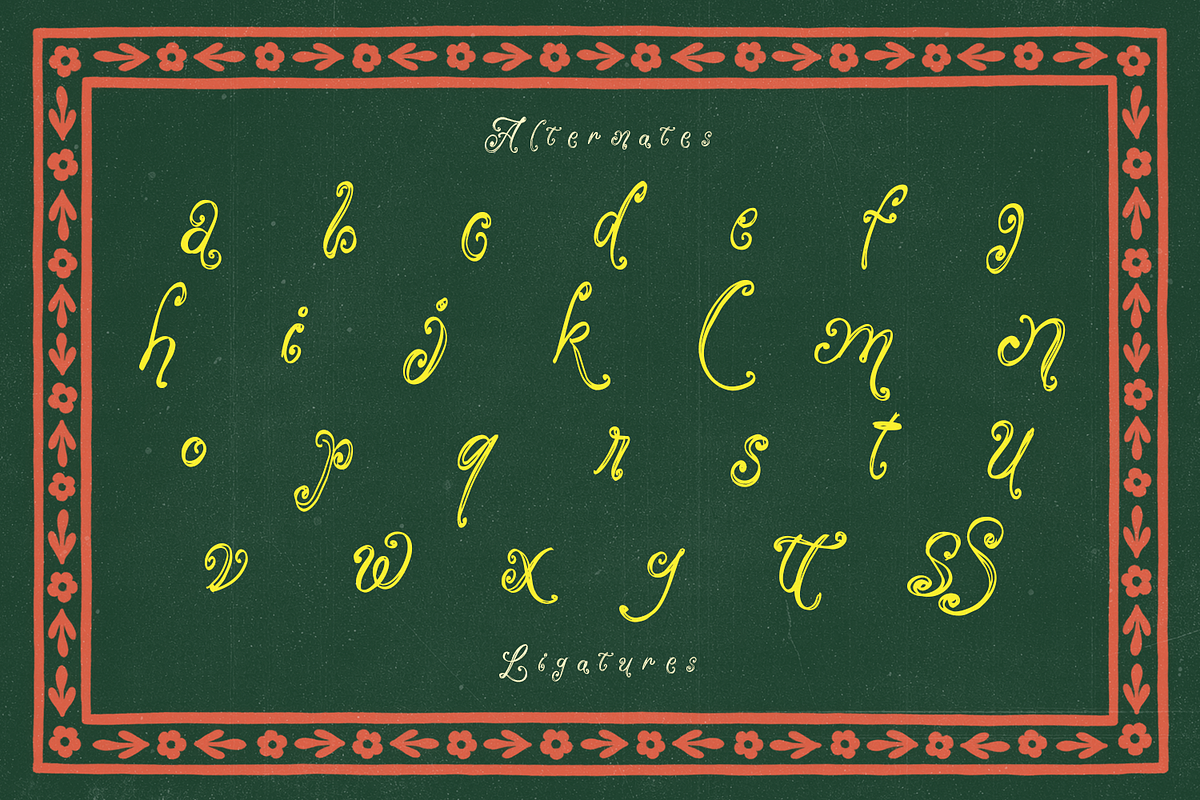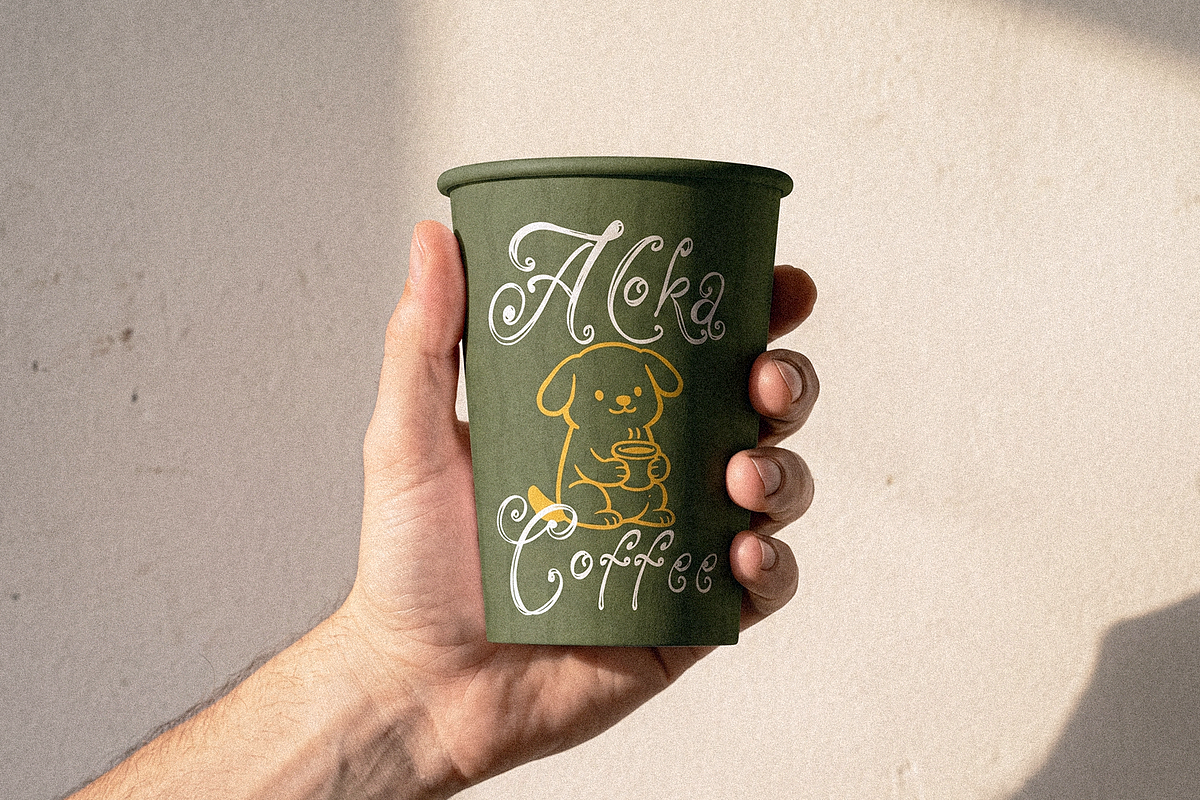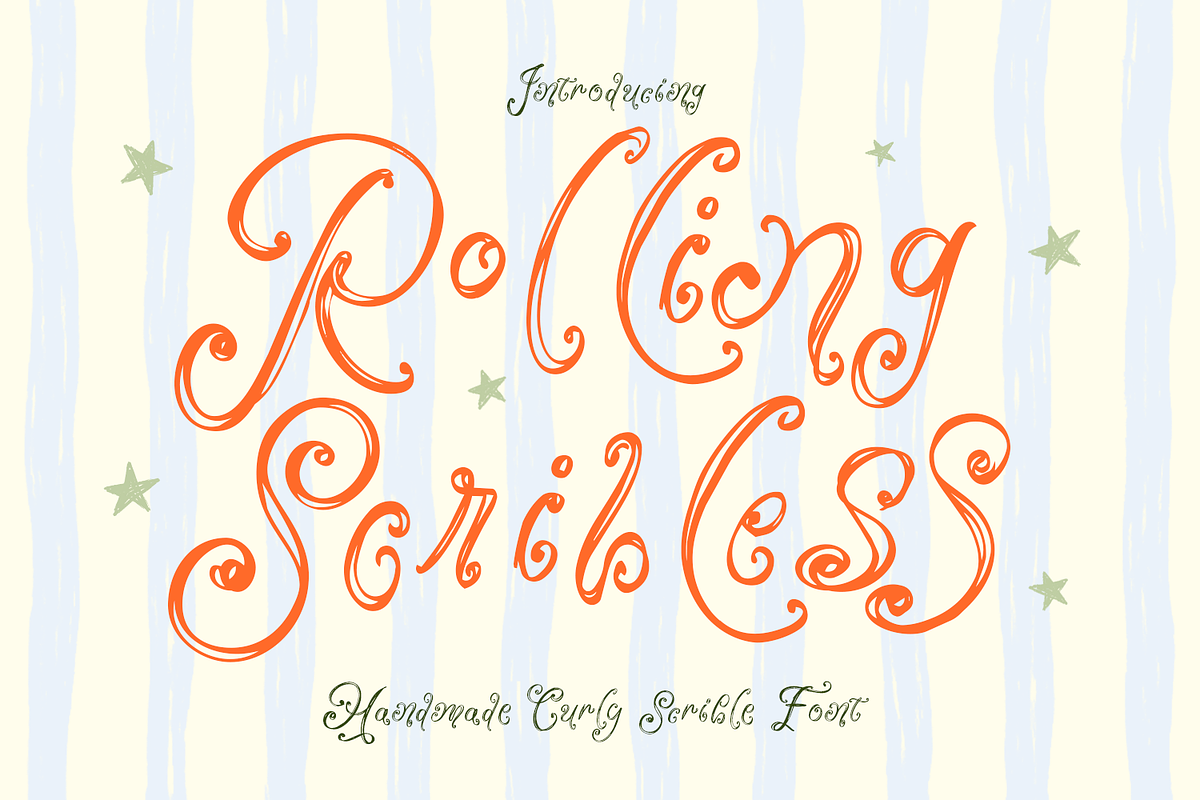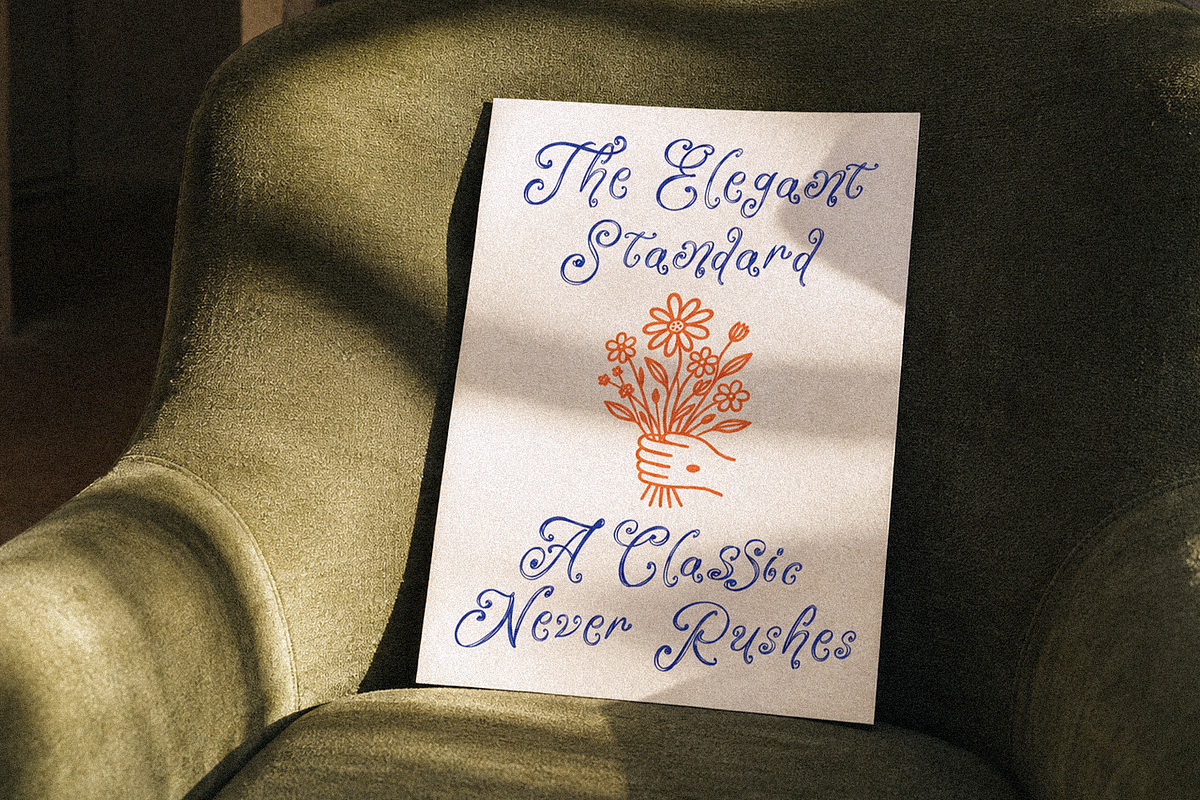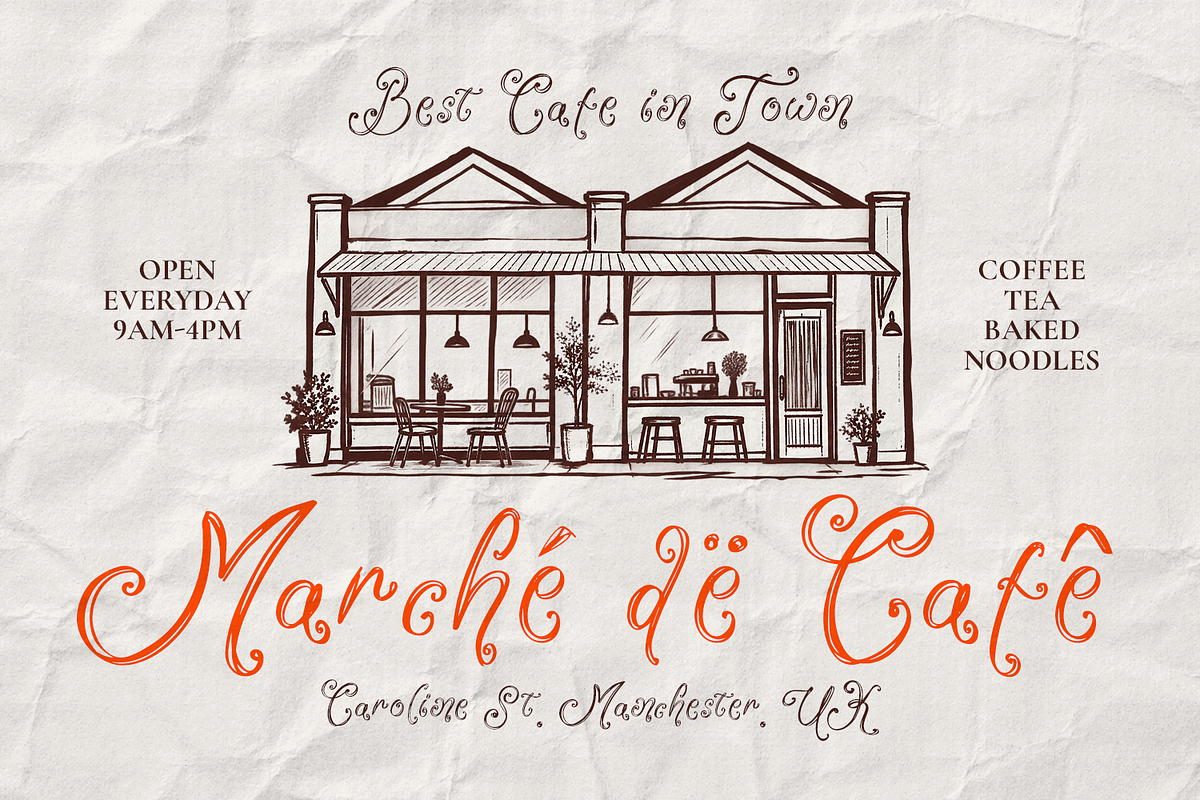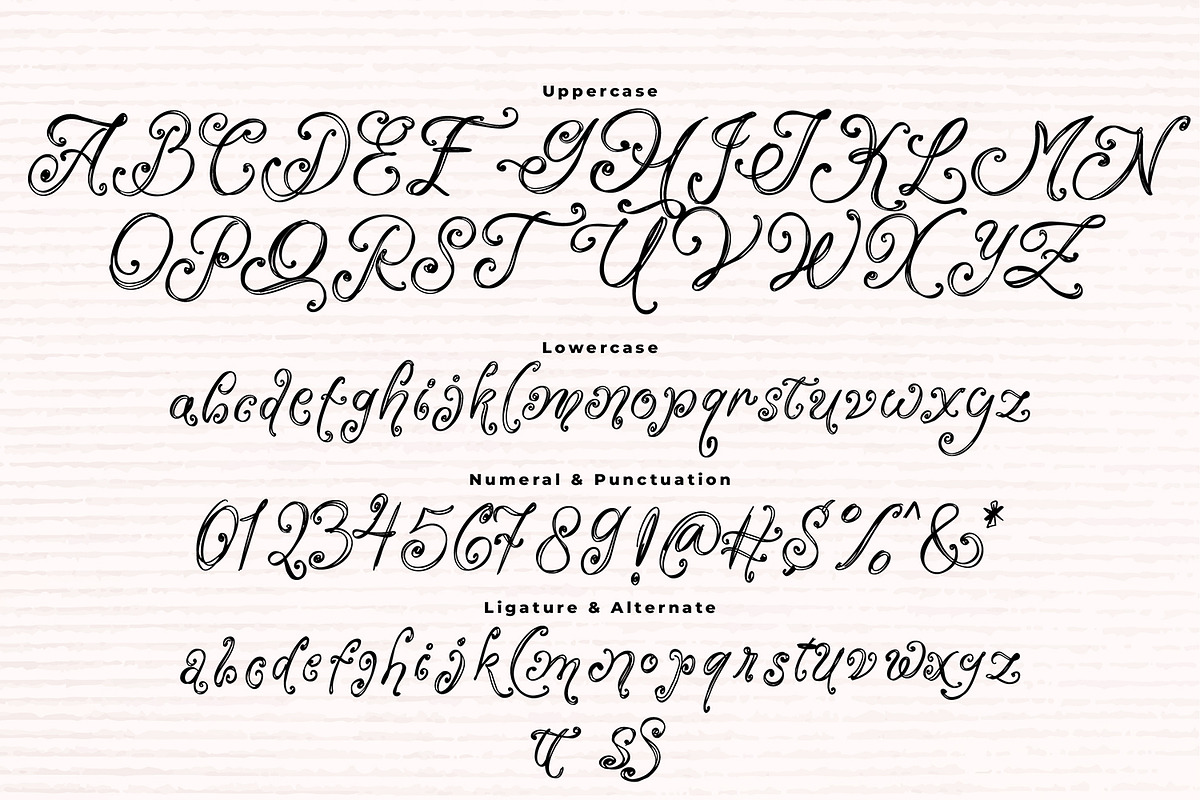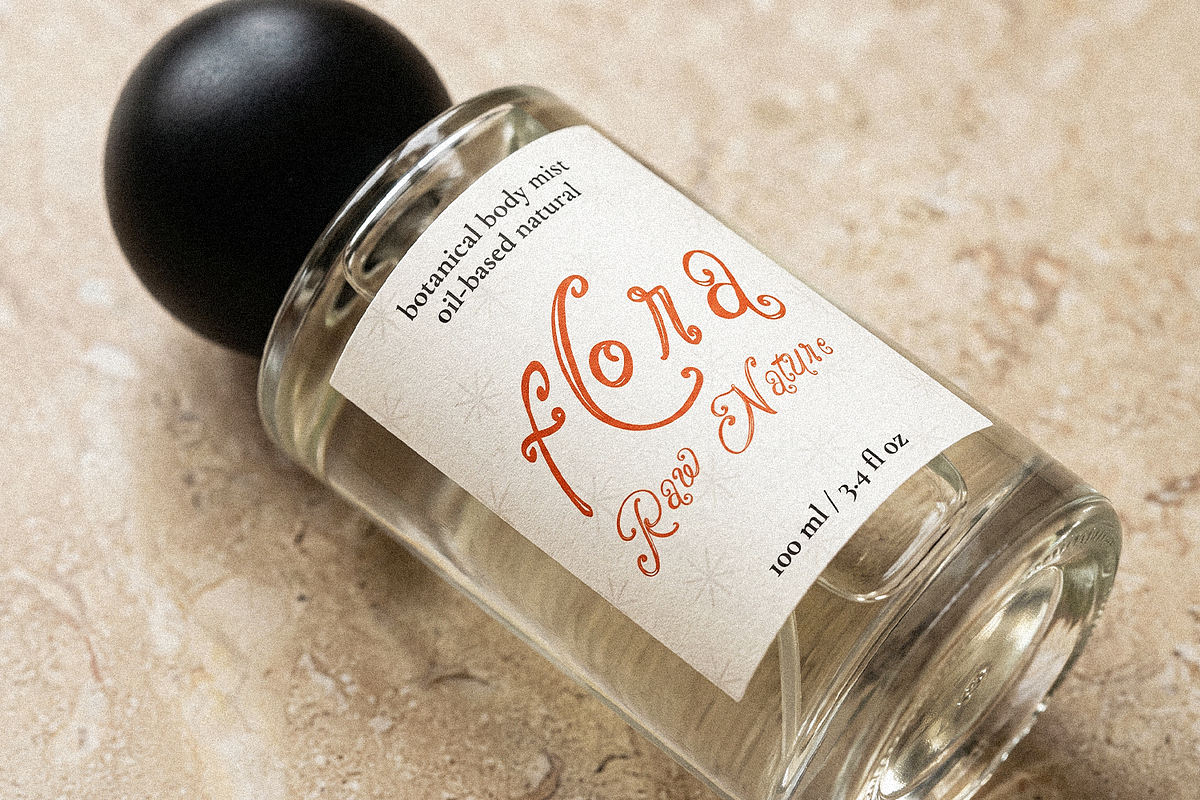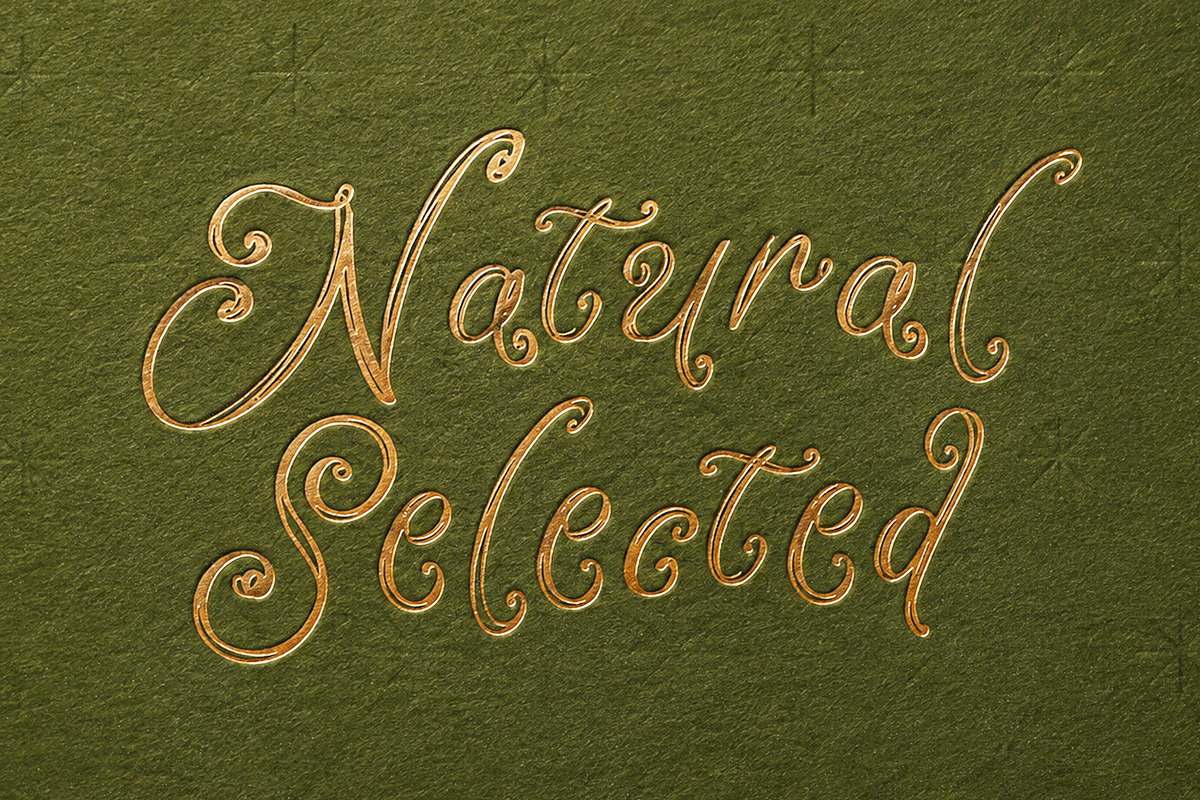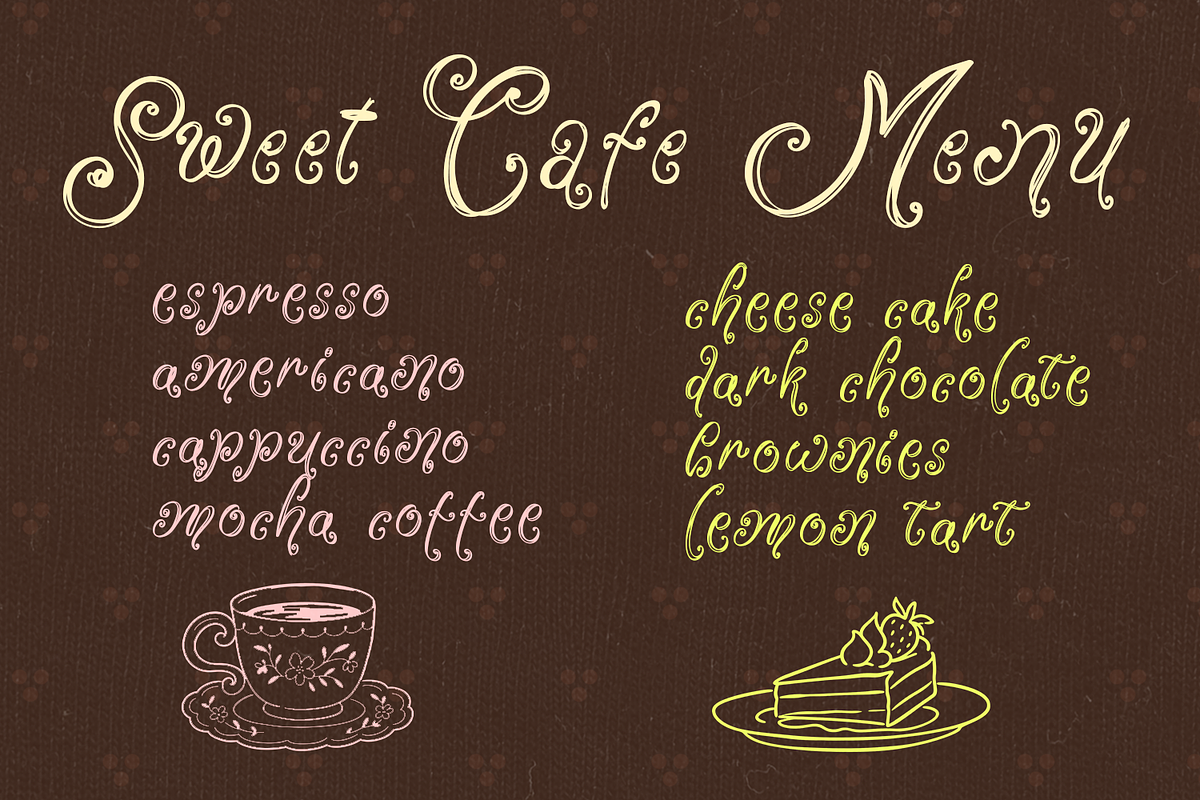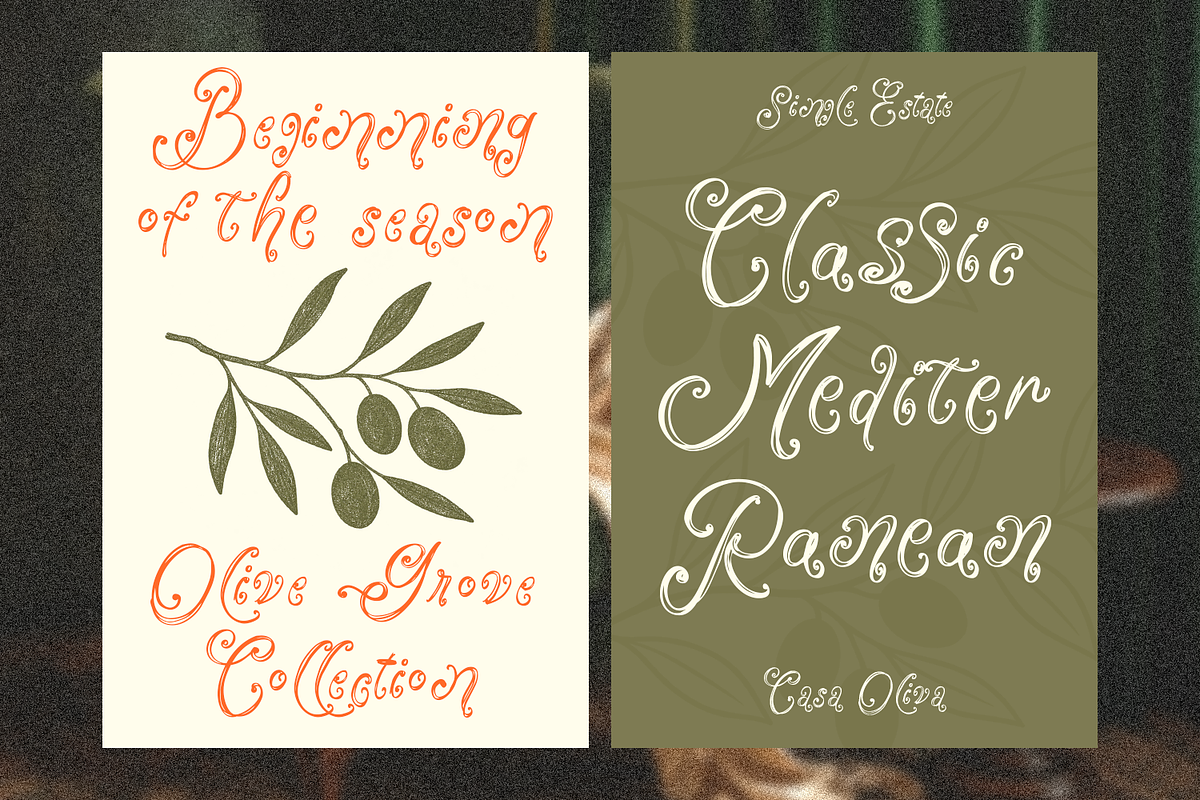
Rolling Scribless Curly Scribble
Rolling Scribless is a whimsical, handmade curly scribble font designed to bring playful energy and joyful charm to your creative projects. Featuring organic loops, playful swirls, and a uniquely textured hand-drawn stroke, this typeface captures a fun, sketchy aesthetic that instantly brightens up display typography.
Crafted with a delightful artistic touch, Rolling Scribless is ideal for design layouts that require a cheerful, imaginative, and hand-crafted feel.
- Complete Character Set: Includes full Uppercase and Lowercase script letterforms.
- Numbers & Punctuation: Complete set of numerals, standard symbols, and punctuation marks.
- Stylistic Alternates & Swashes: Decorative curly elements for creating custom, expressive lettering.
- Multilingual Support: Accented characters supporting various European and Latin-based languages.
Ideal Applications:
- Children's Books & Media: Storybook covers, title headers, illustration lettering, and educational media.
- Party & Event Decor: Fun typography for birthday invitations, greeting cards, cake toppers, and banners.
- Creative Packaging: Cheerful branding for toys, craft kits, bakery products, and handmade goods.
- Merch: Unique lettering for merch, stickers, and custom stationery.
- Social Media & Digital Graphics: Standout text overlays for YouTube thumbnails, Instagram posts, and blog banners.